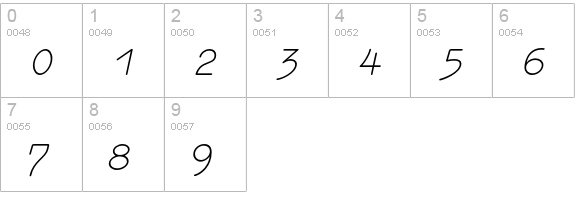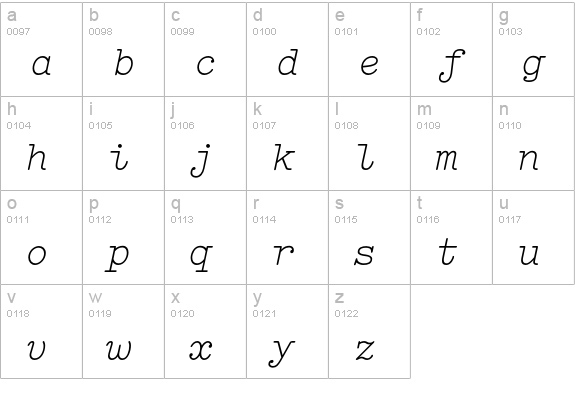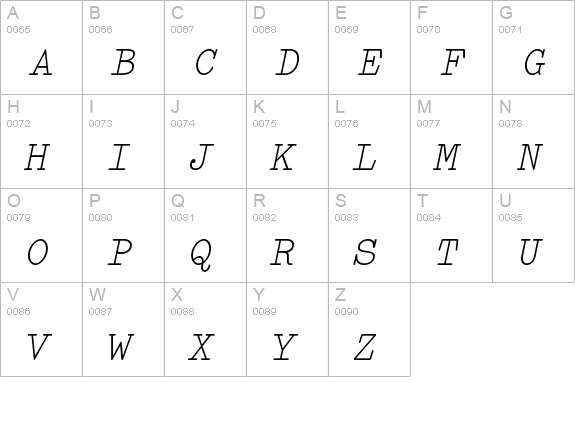
Elementa Italic Font Details
Elementa Italic is a distinctive, italic variant in the Elementa typeface family \xE2\x80\x94 well suited to design and typography projects.
Elementa Italic is a modern and elegant font that exudes sophistication and style. With its sleek lines and unique curves, this typeface is perfect for adding a touch of class to any project. Whether you are designing a website, creating a business card, or working on a branding project, Elementa Italic is sure to make a lasting impression. The best part? Elementa Italic is completely free to download at FontsMarket.com. Don't miss out on this amazing opportunity to enhance your designs with a high-quality font that will set you apart from the rest. Download Elementa Italic today and elevate your creative work to new heights.